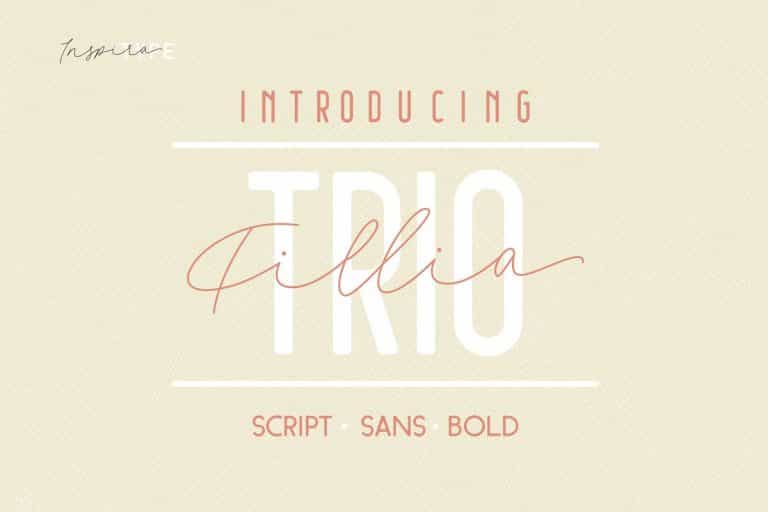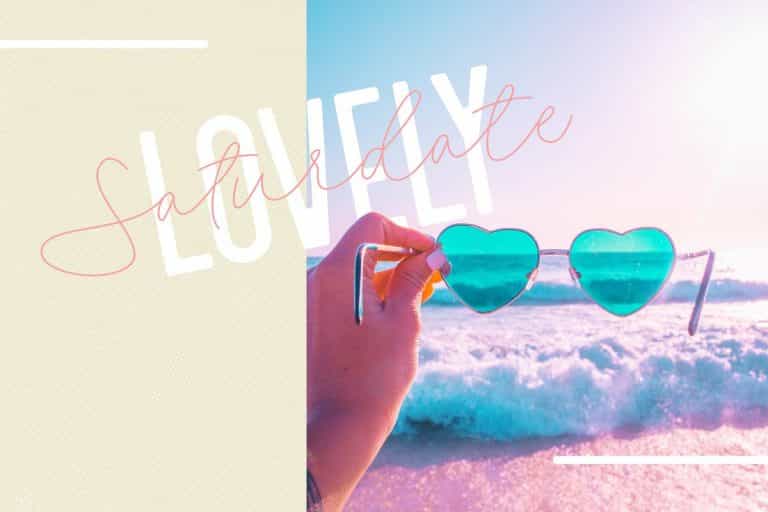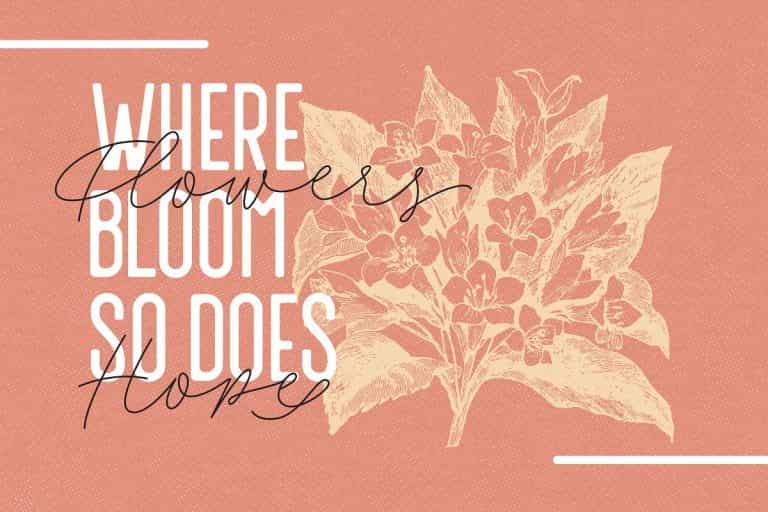
Introducing Filia Trio. Filia is a font display that was designed by hand, it is the reflection of posters from classic times. Contains all the letters, numbers and punctuation marks you need plus many more variations of each character that include OpenType alternates, common ligatures and also additional swash to let you customize your designs. The best for Logotype, Letterhead, Poster, Apparel Design and Label.